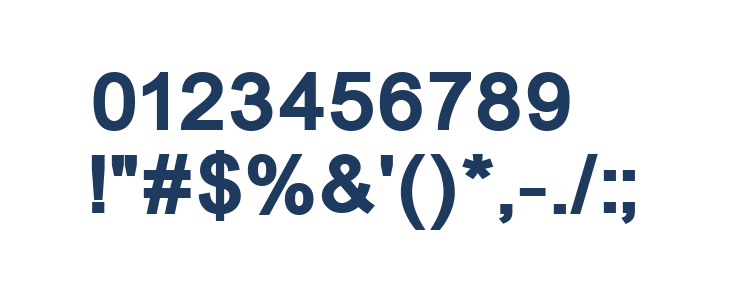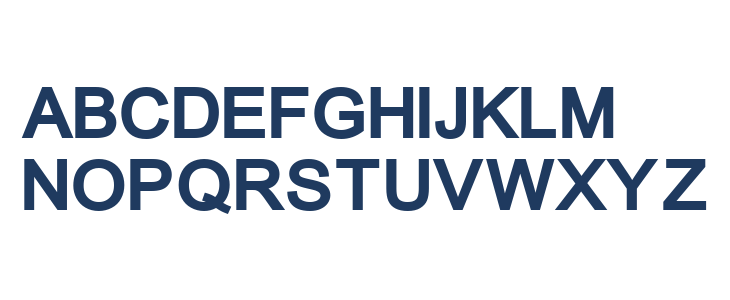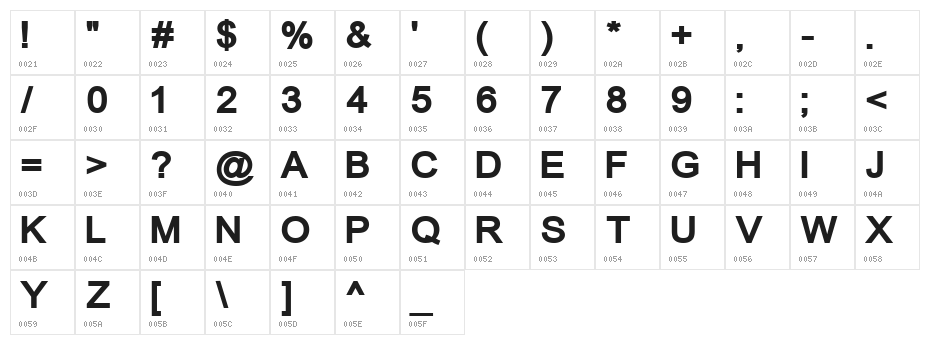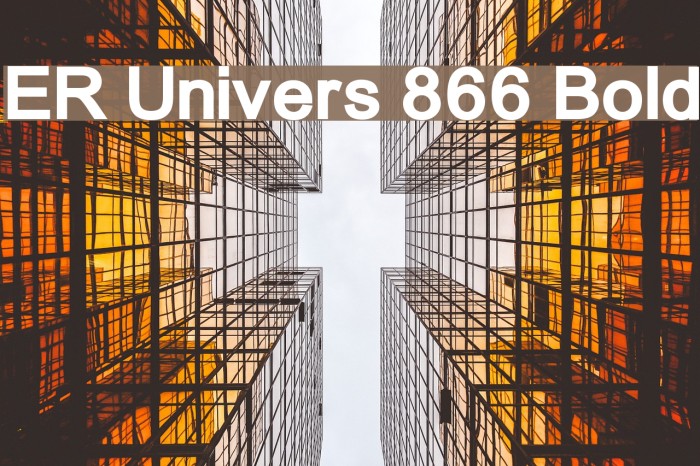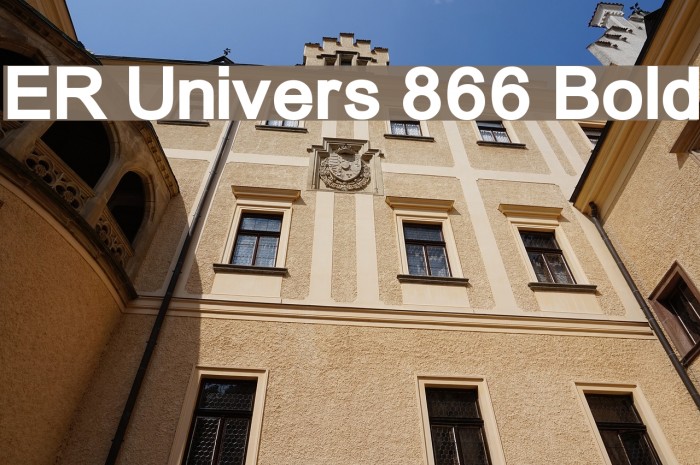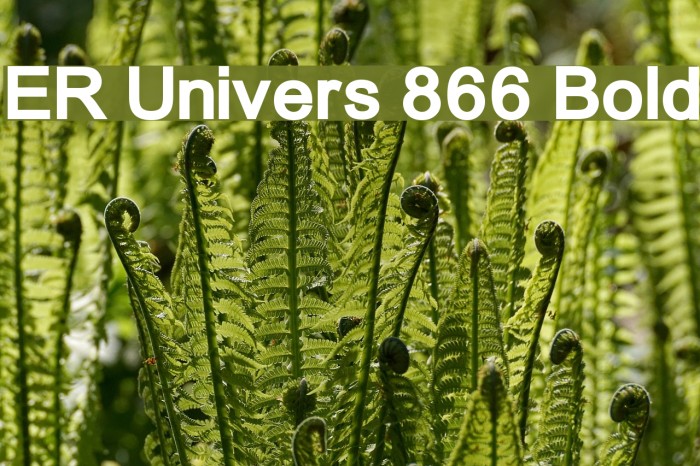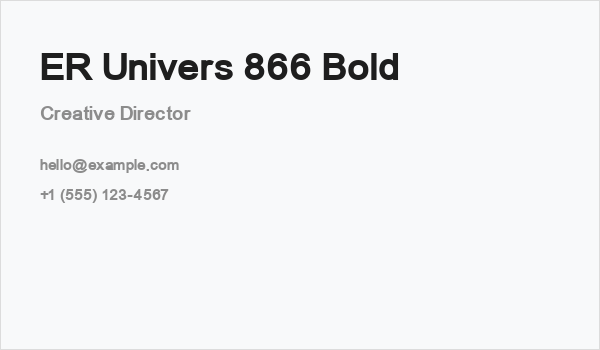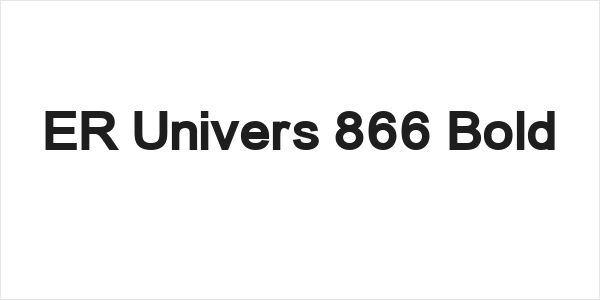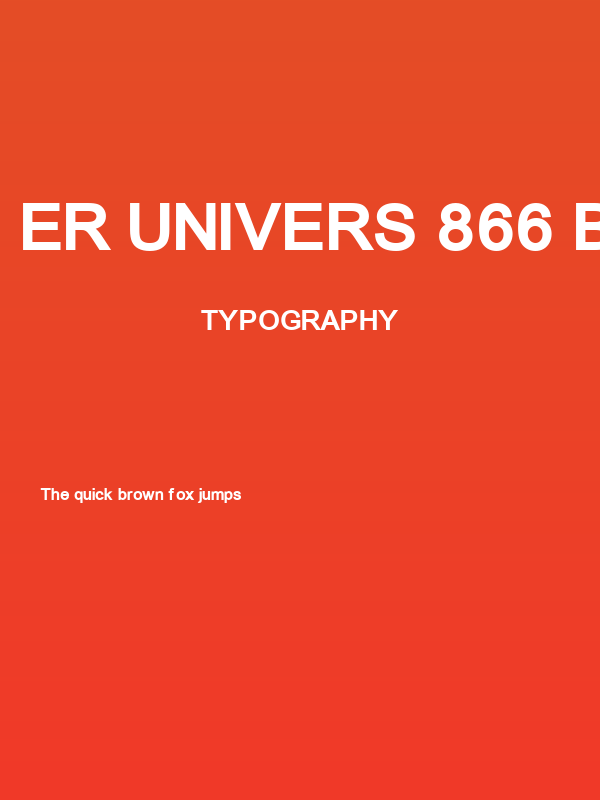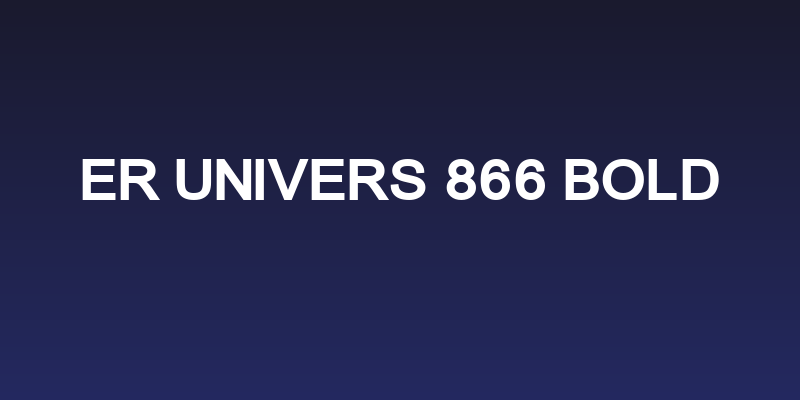
ER Univers 866 Bold Font
ER Univers 866 Bold Description
This font is a bold, sans-serif typeface characterized by its clean and modern appearance. The letters are evenly spaced with a consistent stroke width, providing a uniform and balanced look. The uppercase letters are strong and impactful, while the lowercase letters maintain a similar weight, ensuring readability and clarity. The numerals are clear and distinct, matching the overall boldness of the typeface. Special characters are well-defined, making this font versatile for various applications. Its simplicity and boldness make it suitable for both digital and print media.